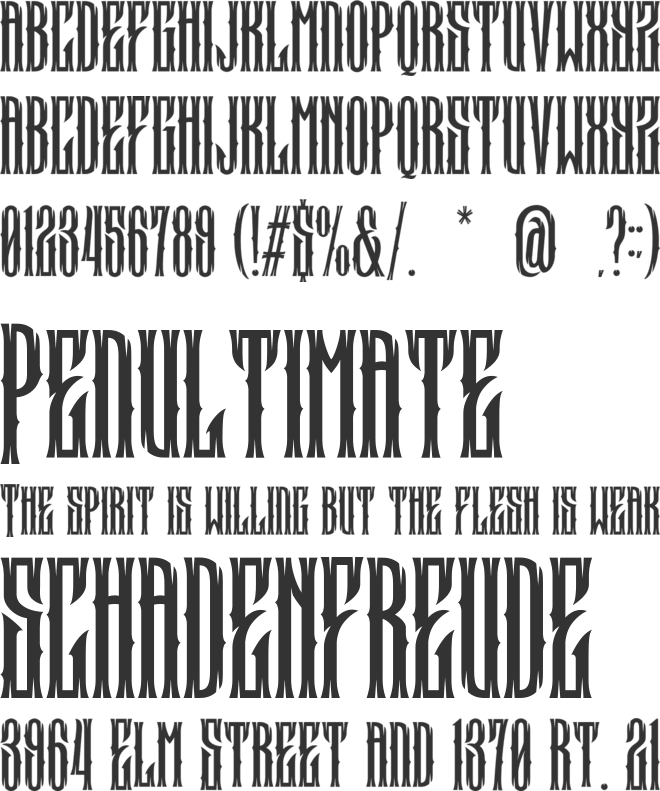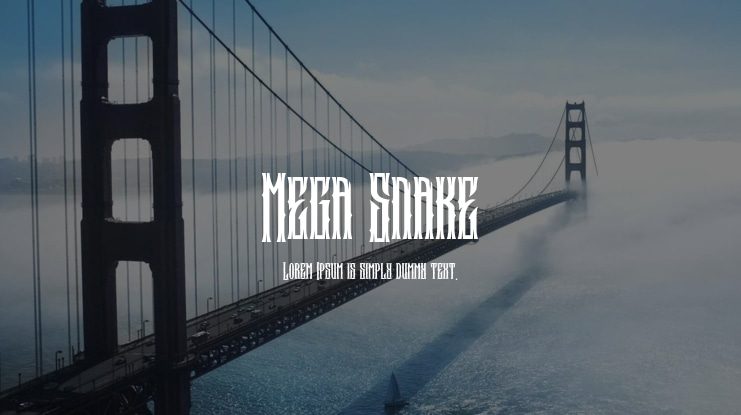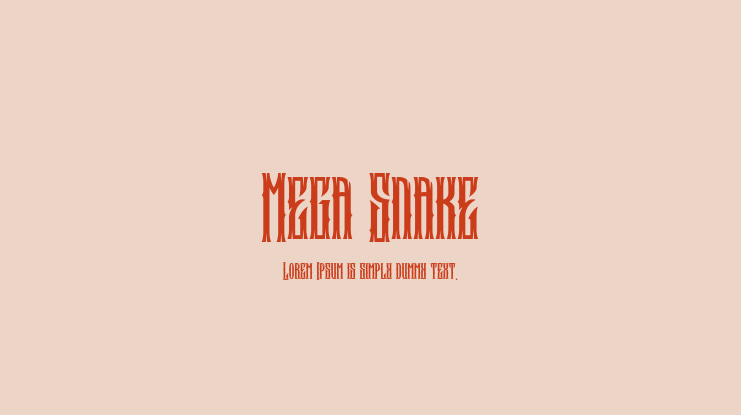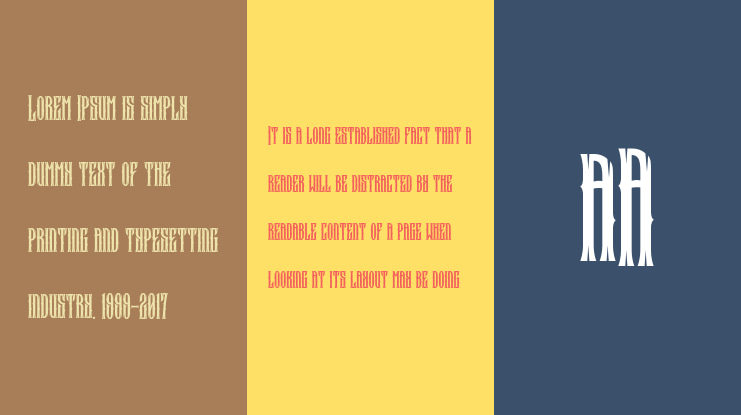
Mega Snake Font
Unleash the venom of creativity with Mega Snake Typeface, a modern death metal-inspired font that strikes the perfect balance between intensity and readability. Designed for those who crave bold, dramatic aesthetics without sacrificing clarity, this typeface is the ultimate weapon in your design arsenal.